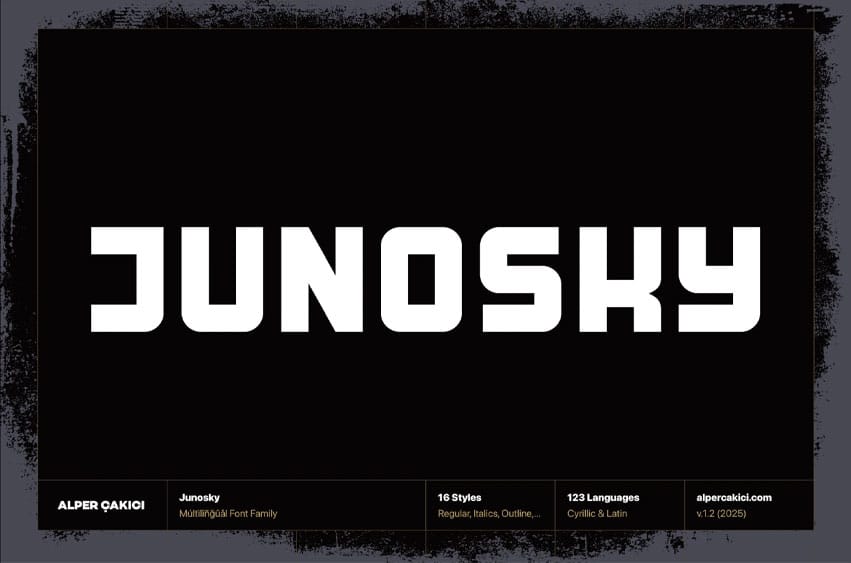
Junosky Font is a geometric and bold display font family designed for versatility across digital and print media. It includes 16 styles, featuring Inline, Outline, Regular, Rough, Rounded, Rounded Inline, Rounded Outline, Rounded Rough, and their corresponding italics.
Each style is meticulously crafted with precise kerning and balanced geometry, ensuring consistency and readability at any scale. Supporting 123 languages, including full Cyrillic, Junosky enables seamless multilingual typography for global brands and design projects. Its clean structure and confident forms make it ideal for logos, headlines, posters, packaging, and branding.
Whether you prefer sharp precision or softened rounded contours, Junosky offers the flexibility and performance needed for modern typographic design. This product presented in OTF, TTF, WOF, WOFF2 formats.